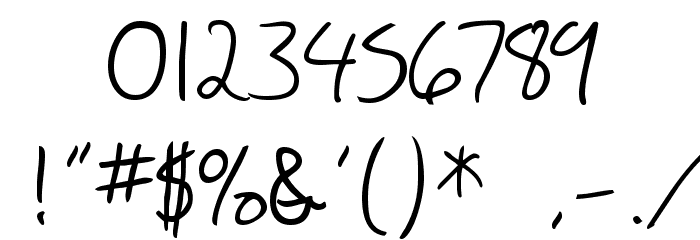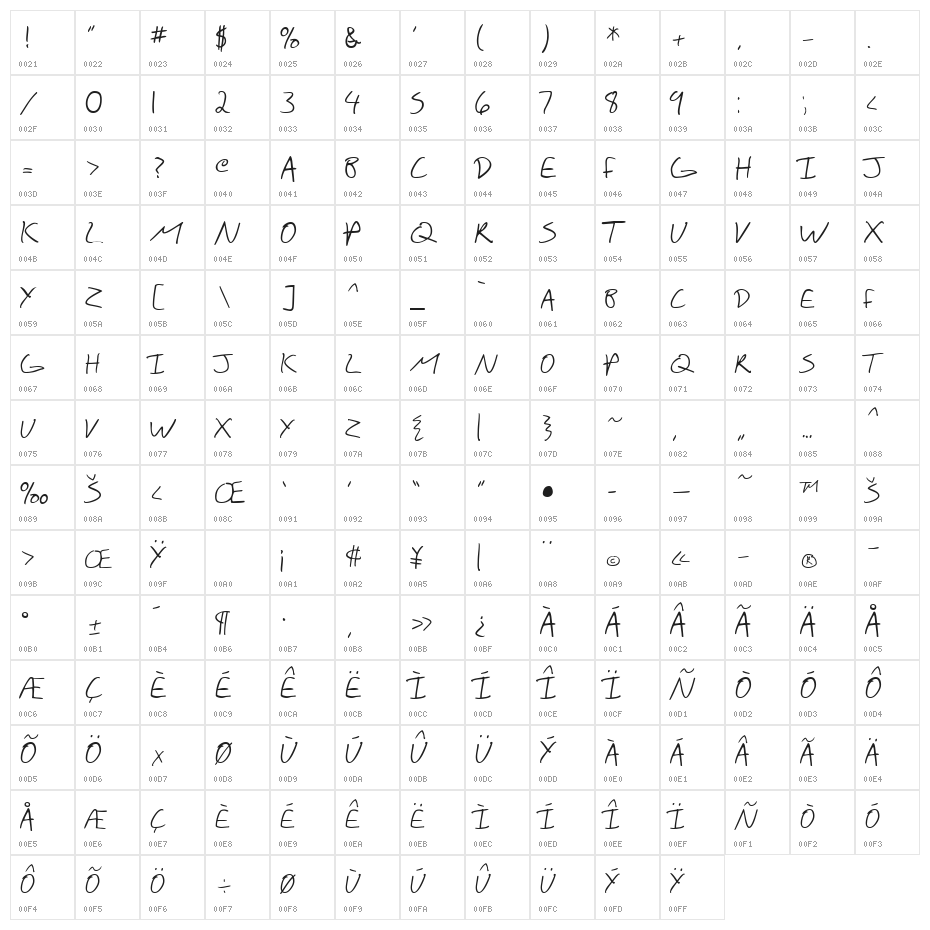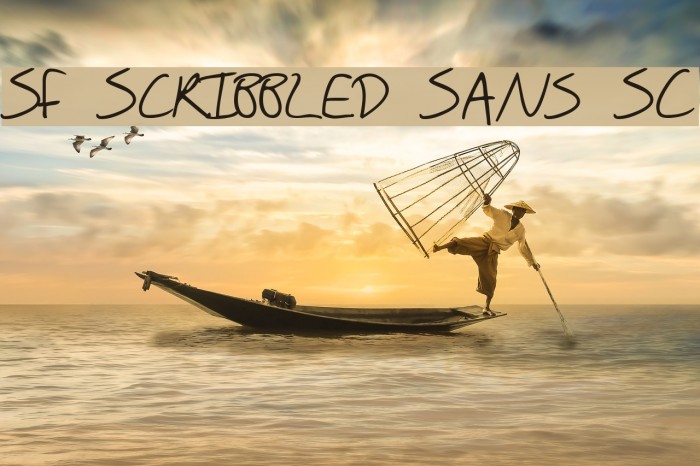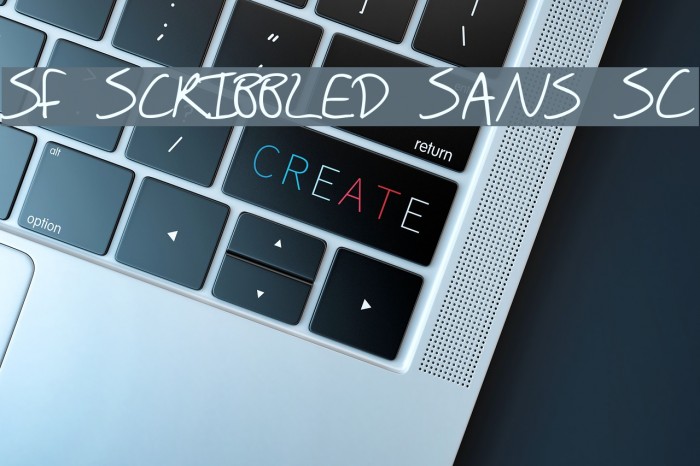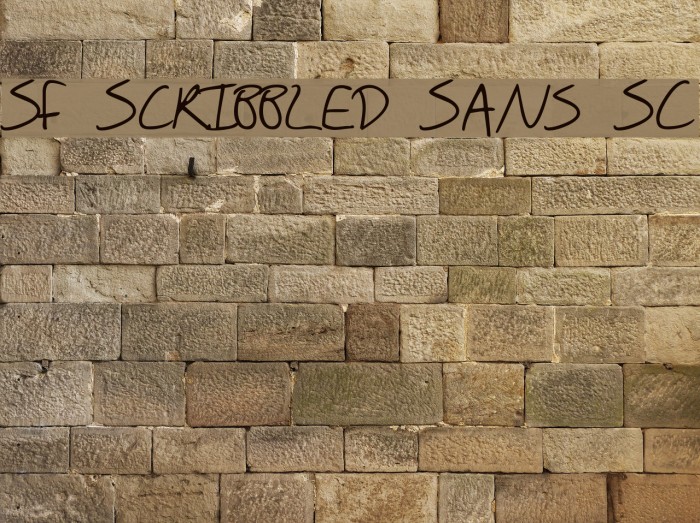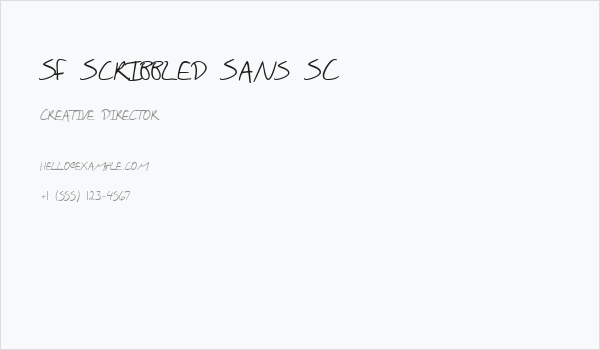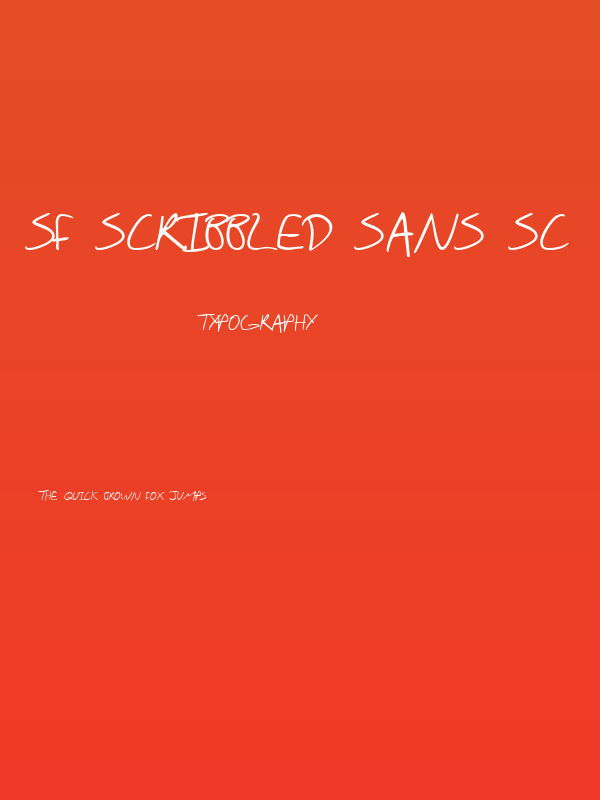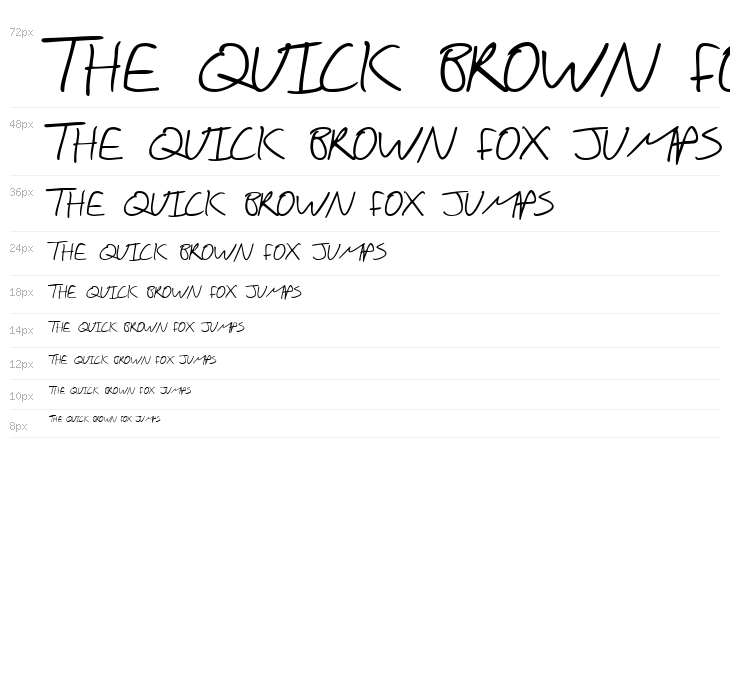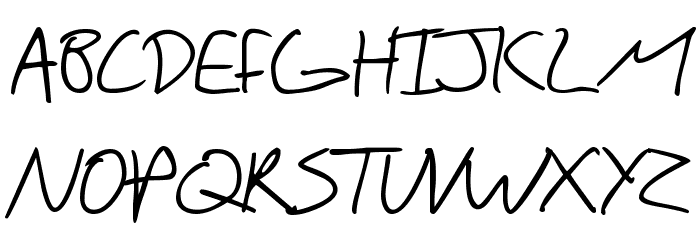
SF Scribbled Sans SC Font
SF Scribbled Sans SC Description
This font exudes a casual, handwritten style that mimics the look of quick, informal scribbles. The characters are slightly slanted, giving them a dynamic and lively appearance. Each letter is distinct, with a playful and spontaneous feel, making it ideal for projects that require a personal touch. The strokes are consistent in width, maintaining a uniform look throughout. The numbers and special characters follow the same style, ensuring coherence across all text elements. This font is perfect for creative projects where a relaxed and approachable aesthetic is desired.
| Proposed Projects | Ideal for greeting cards, personal notes, informal invitations, and creative branding. |